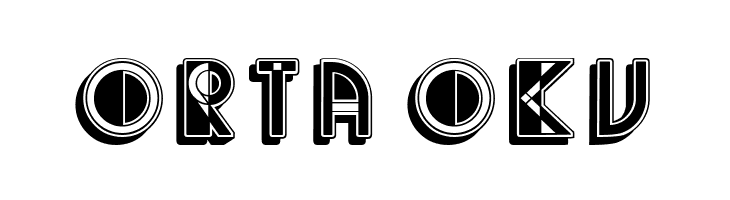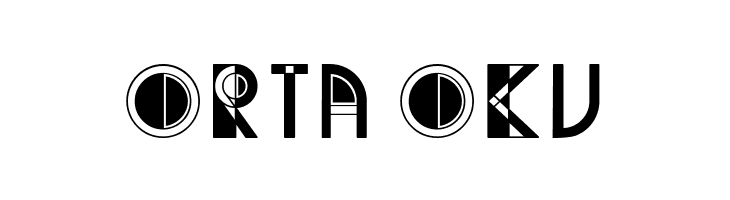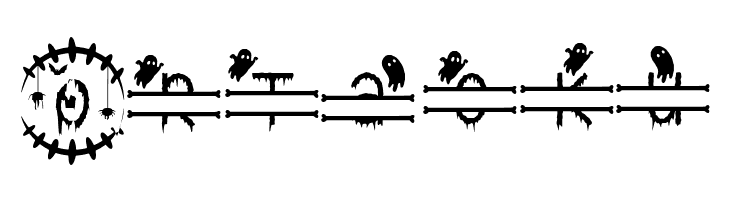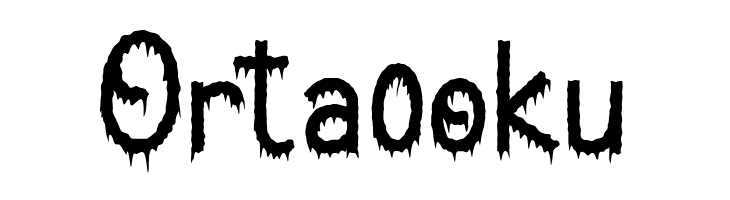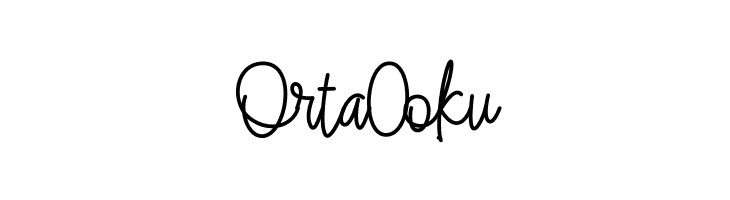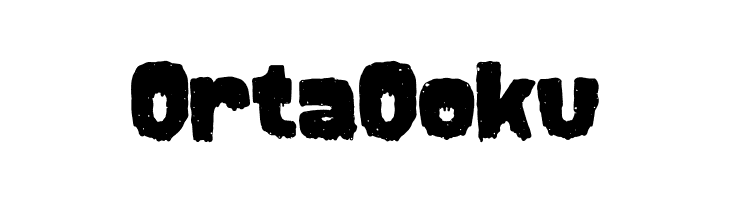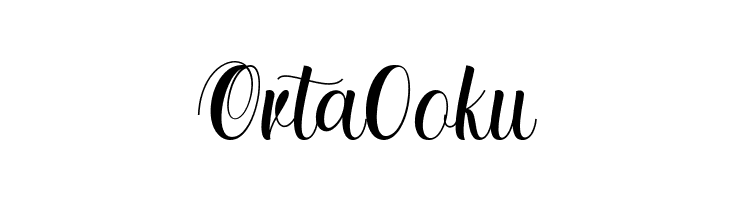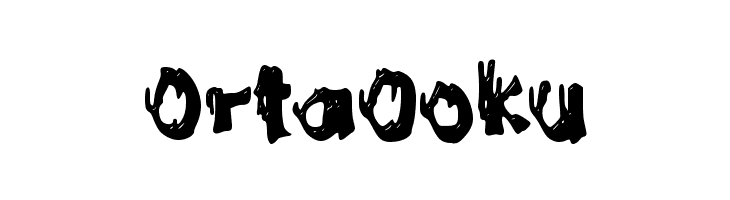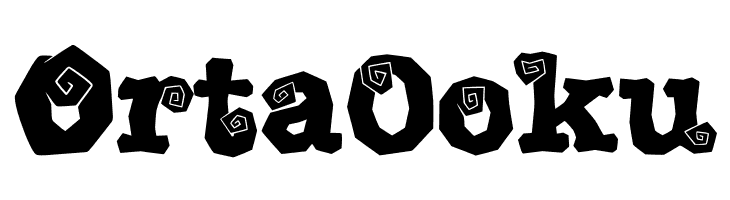
A playful, handwritten font with fluid, connected strokes.
A spooky, dripping font perfect for horror themes.
A spooky, decorative font with a Halloween theme, featuring circular saw borders and crow accents.
A bold, decorative font with quirky, spiral-adorned characters, ideal for spooky themes.
A bold, distressed font with a spooky, textured appearance.
A bold, distressed font with a spooky, eerie aesthetic.
An elegant script font with flowing, intricate loops and swashes.
A bold, geometric font with Art Deco influences and modern flair.
A bold, geometric font with a shadow effect, ideal for retro and vintage designs.
A bold, hand-drawn font with a textured, artistic style.